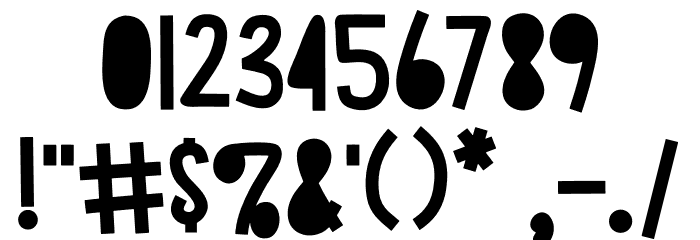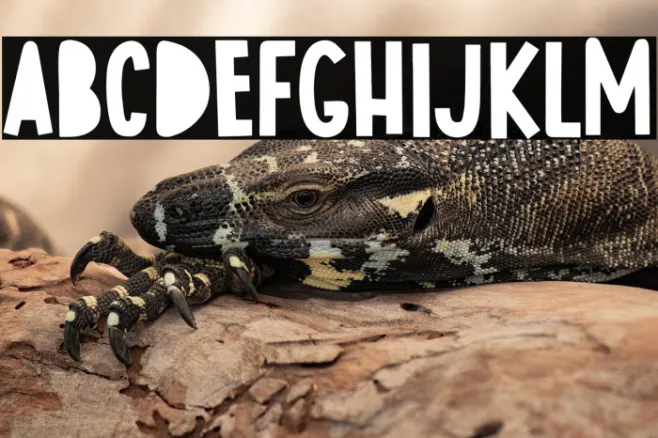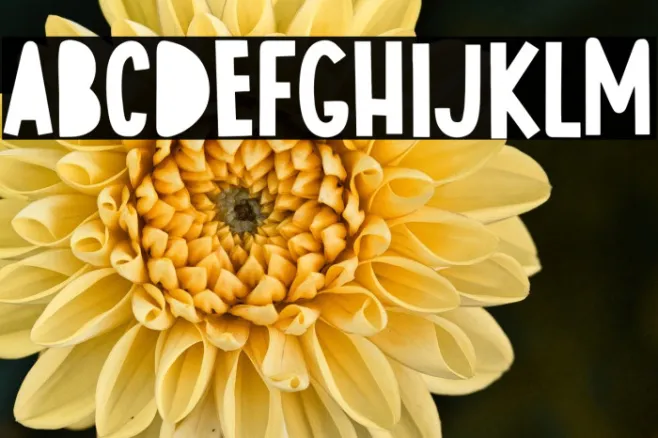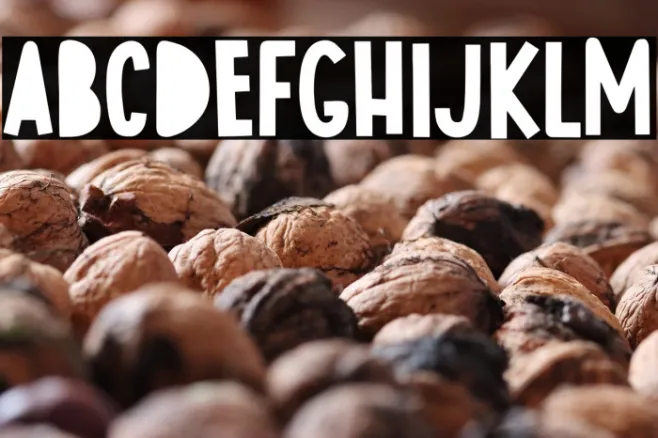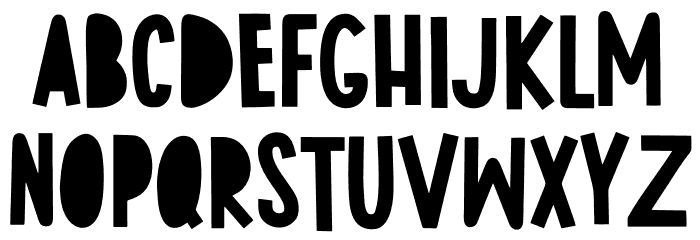
Rockers Bulshit Font
Rockers Bulshit Description
This font is a bold, playful typeface with a distinctly retro vibe. The characters are thick and rounded, giving them a friendly and approachable appearance. The uppercase letters are uniform in height, while the lowercase letters maintain a consistent style that complements the uppercase set. Numbers and special characters are designed with the same boldness and rounded edges, ensuring a cohesive look across all text. The font's unique style makes it stand out, ideal for projects that require a fun and energetic feel.
| Overall Style | Retro, Playful |
| Proposed Projects | Ideal for posters, children's books, logos, and branding that require a fun and energetic feel. |